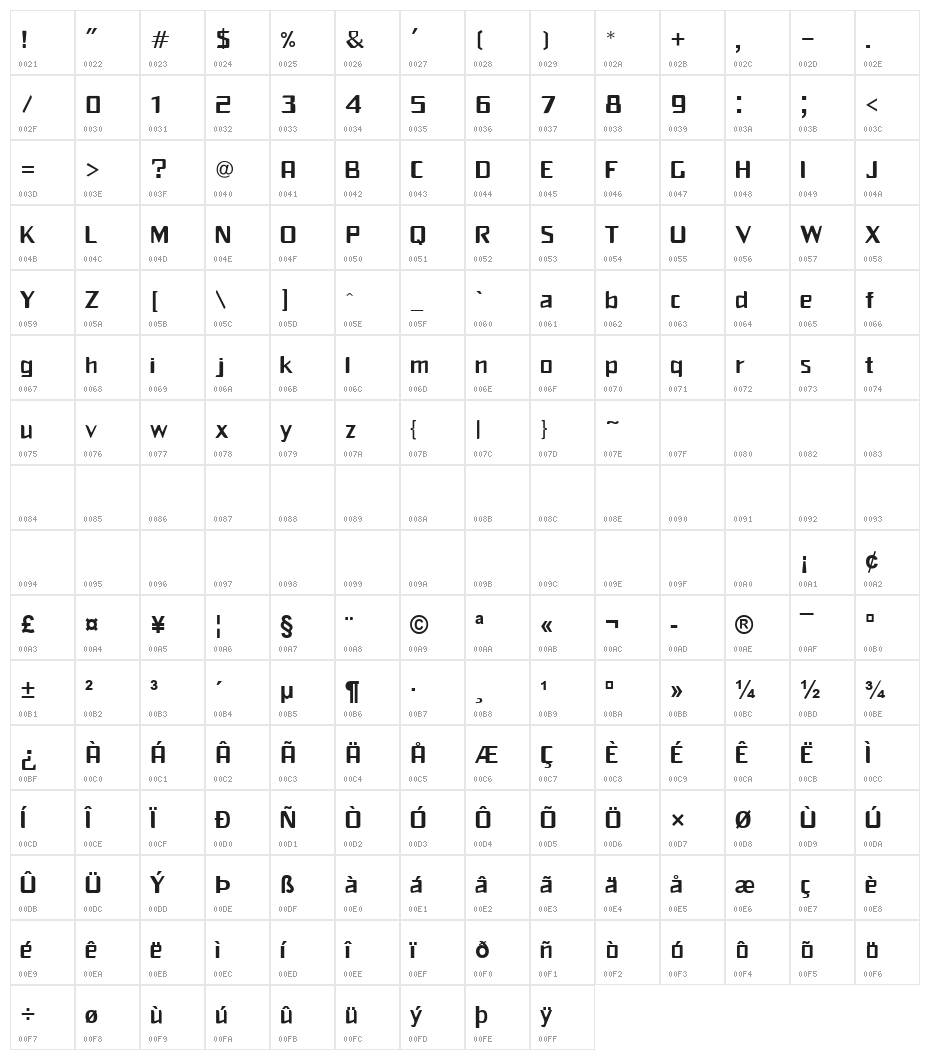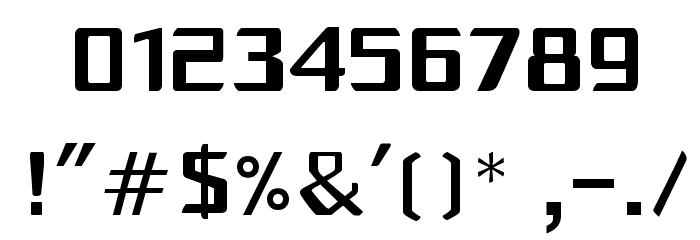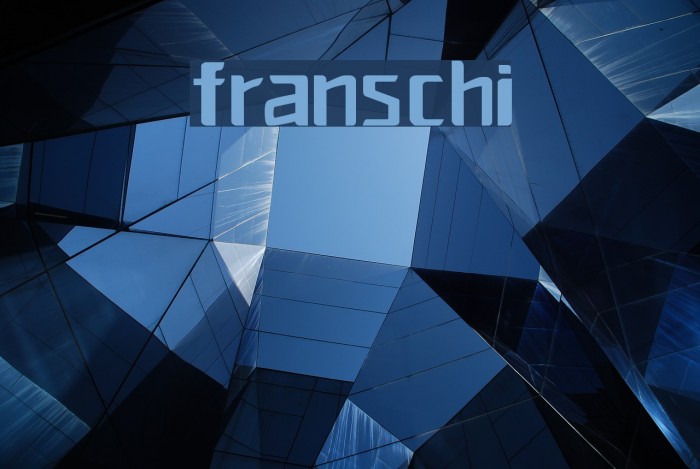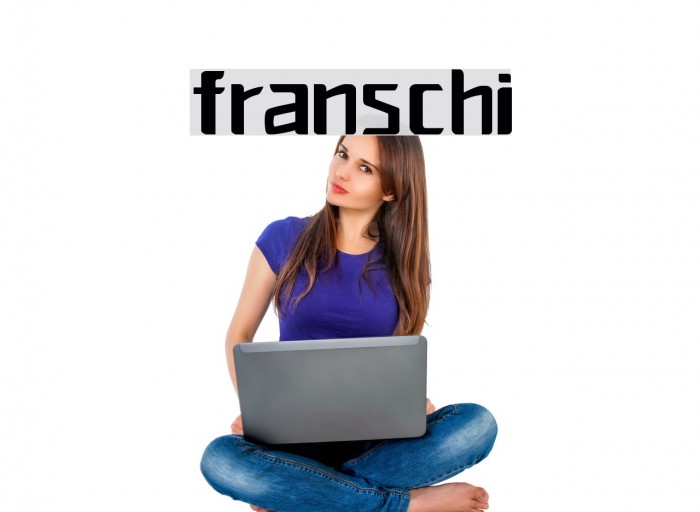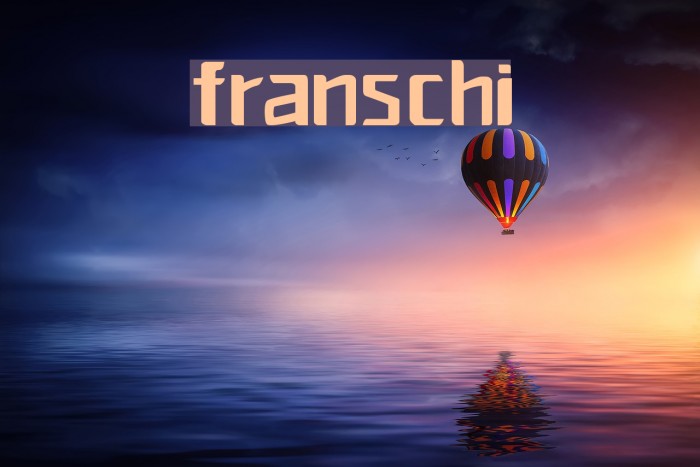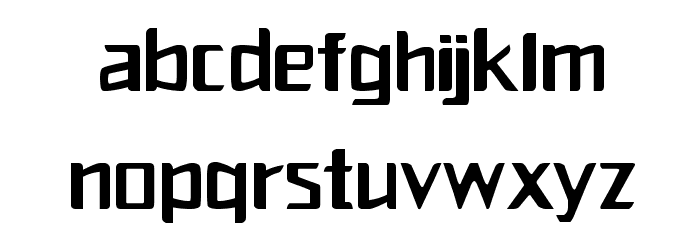
franschi Font
franschi Description
This font features a bold and modern design with a geometric structure. The characters are constructed with straight lines and sharp angles, giving it a futuristic and technical appearance. The uppercase letters are uniform in height, while the lowercase letters maintain a consistent style with slightly rounded edges. The numerals are clear and distinct, matching the overall aesthetic of the font. Special characters are designed to complement the alphanumeric characters, maintaining the same bold and structured look. This font is ideal for projects that require a strong and contemporary feel.